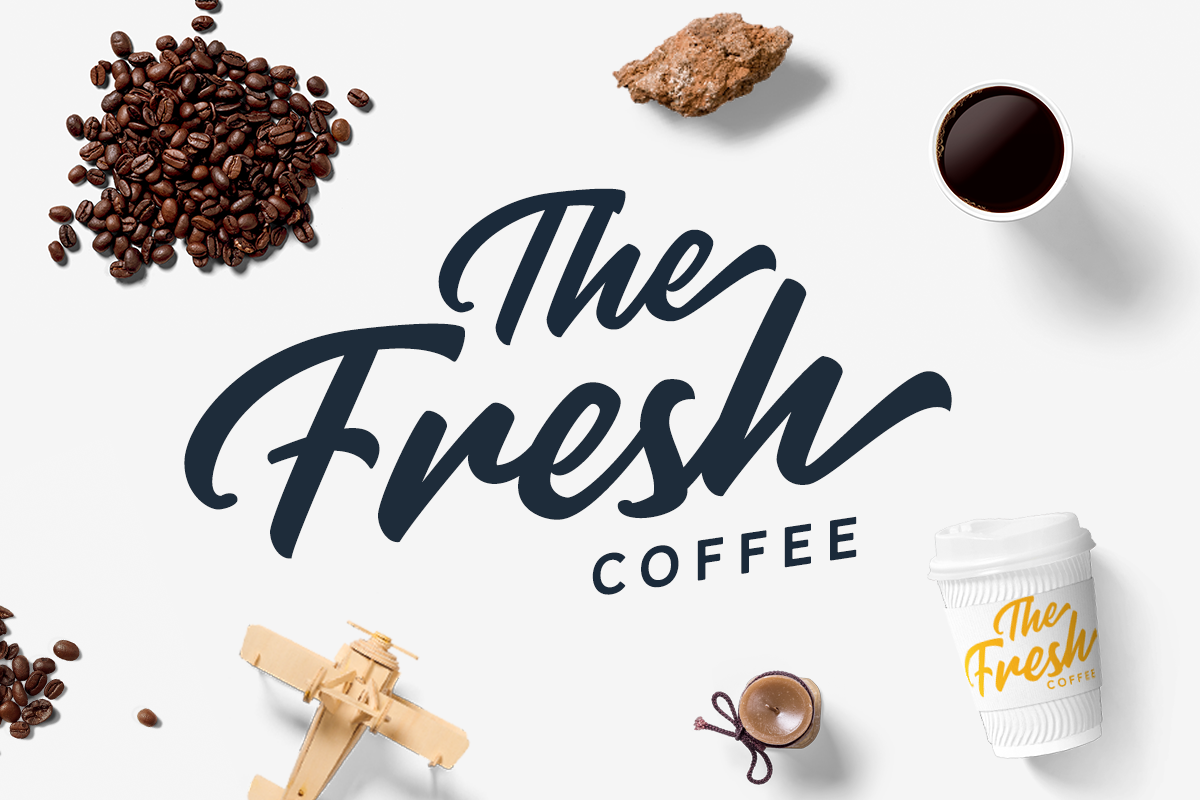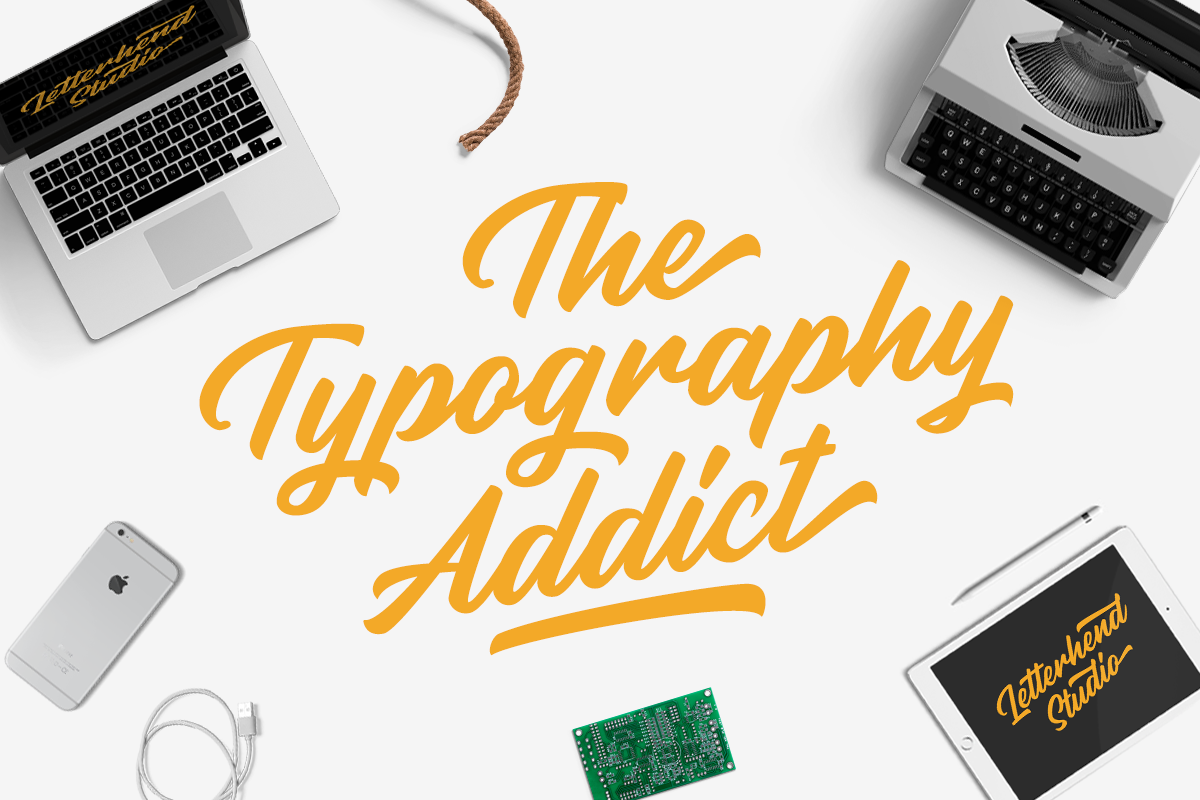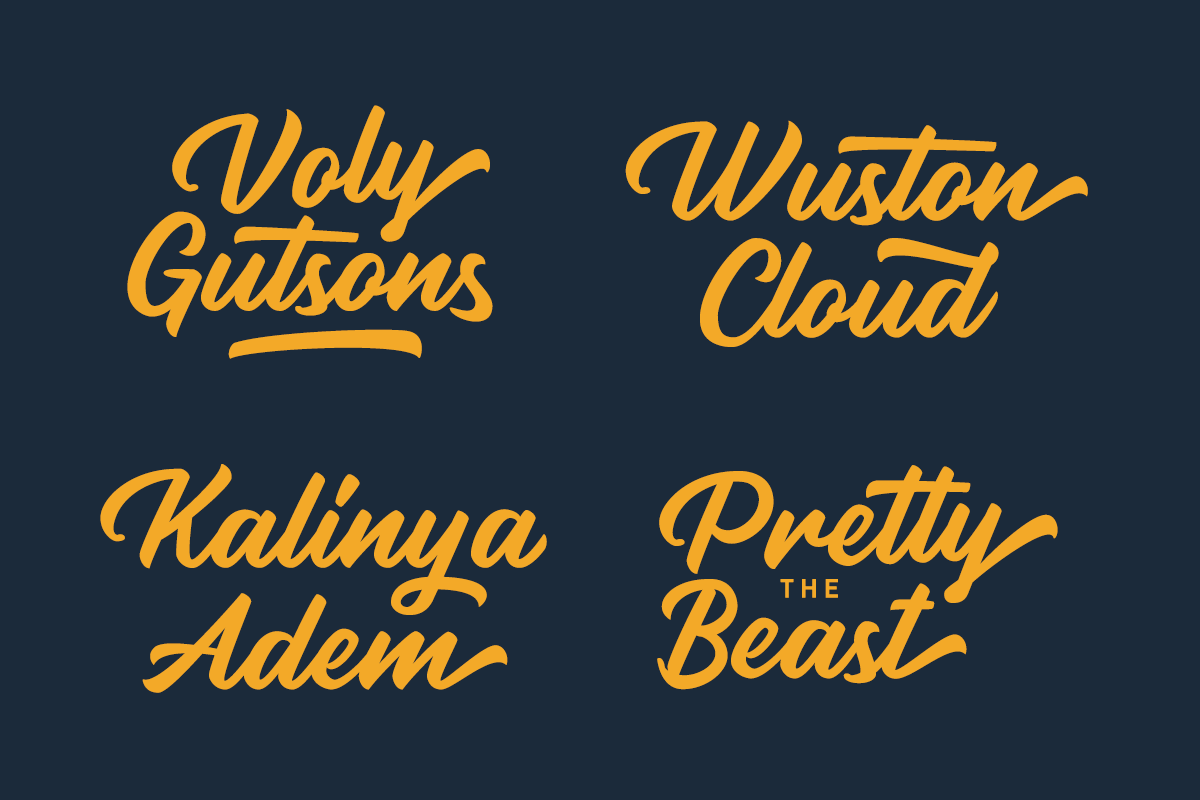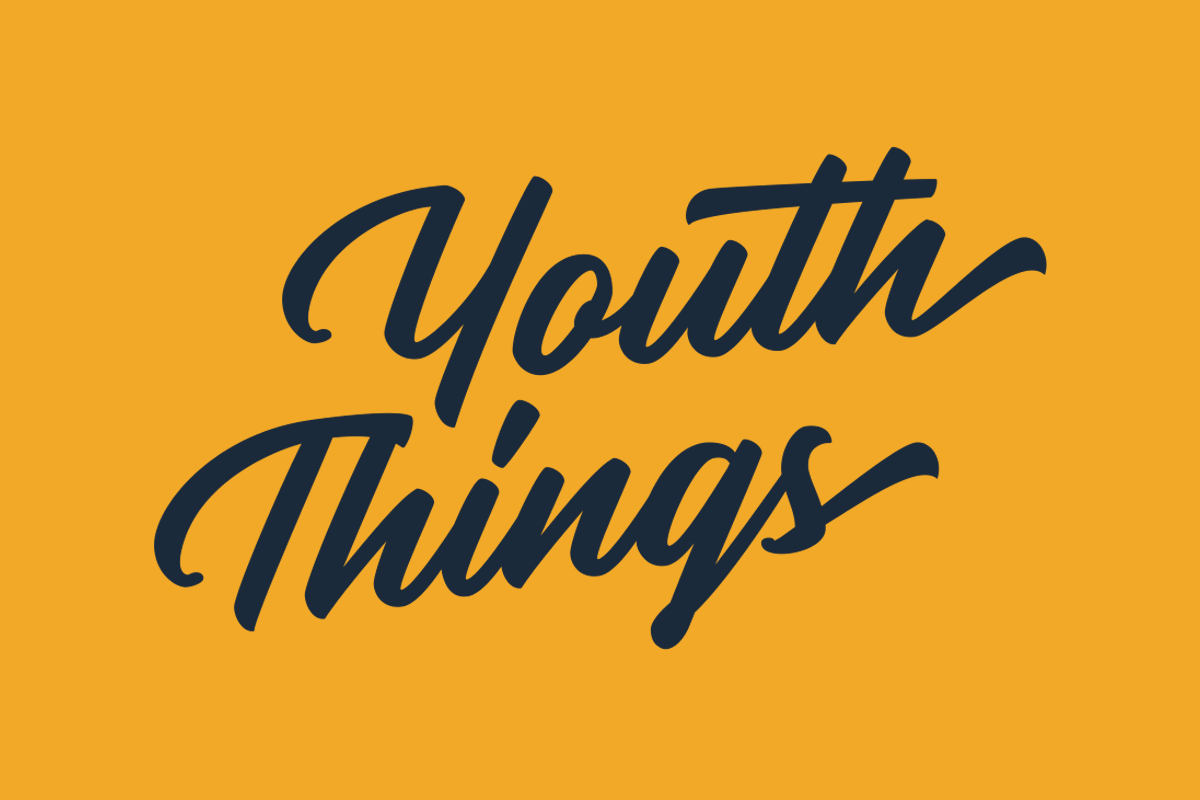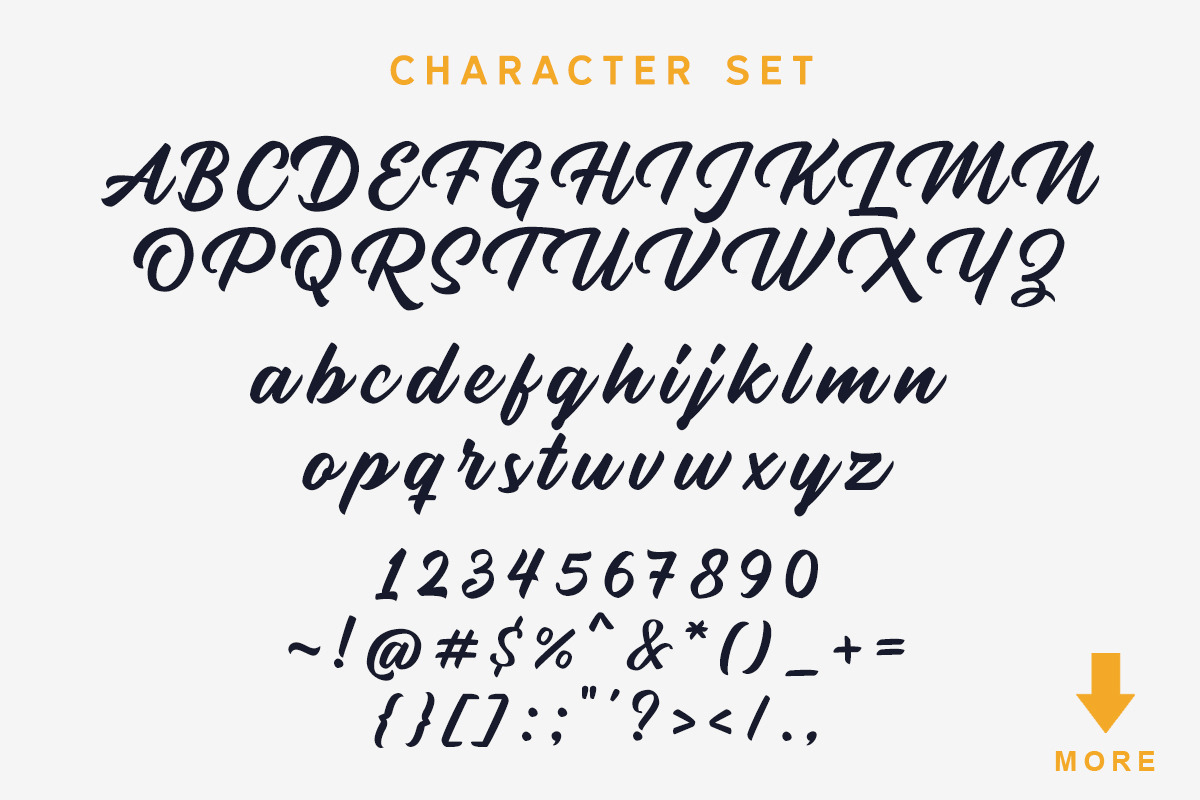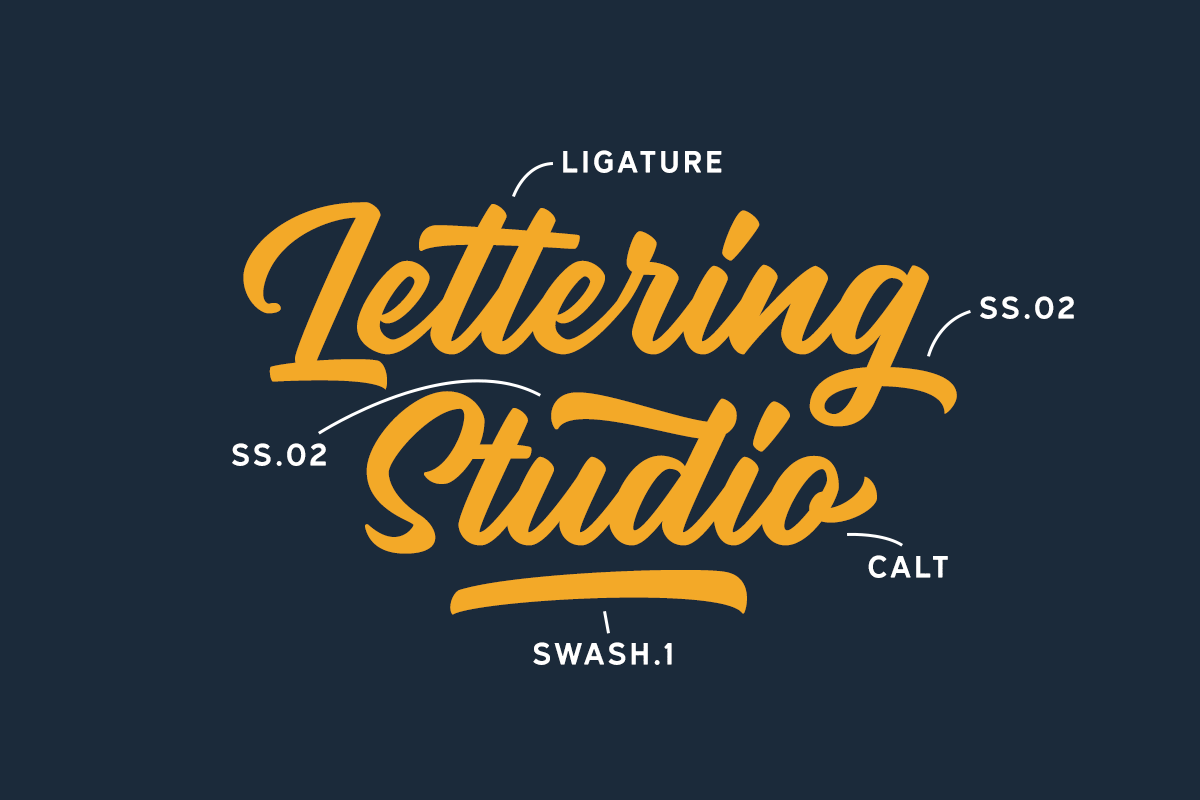
Rupture Typeface - Font Duo
Introducing, Rupture Typeface. A bold and modern script that will fulfill your design needs for casual theme, logotype, quotes, wordmark, etc. This has many opentype features like ligature, stylistic alternate, contextual alternate, swash, etc and support multi language. It also already PUA Encoded.
- This has many opentype features like ligature, stylistic alternate, contextual alternate, swash, etc and support multi language.